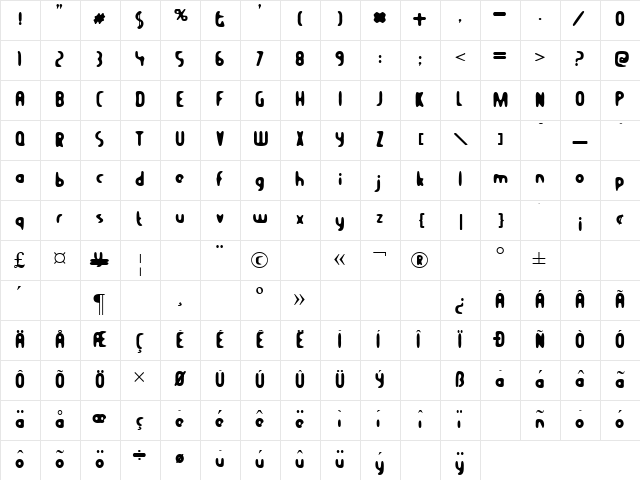
Balcony Angels Regular
Design Context for Balcony Angels Typeface
Balcony Angels offers clean, dependable letterforms without strong stylistic allegiance, making it a practical choice for designers who need flexibility.